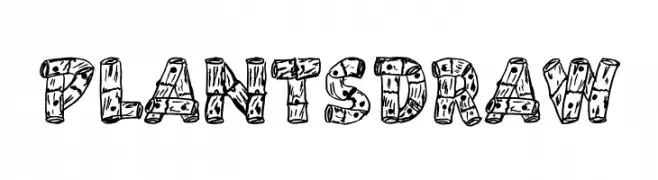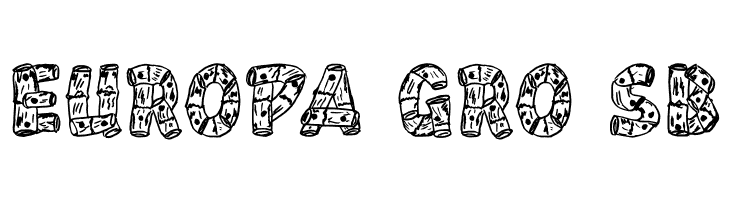
A bold, artistic font with a playful, brush-like texture and dynamic curves.
A bold, expressive script font with flowing cursive letters.
A bold, expressive script font with a hand-drawn, lively style.
A modern, rounded sans-serif font with balanced spacing and clear characters.
A bold, rounded font with a playful and friendly style.
A futuristic, geometric font with clean lines and a modern aesthetic.
Distressed, bold stencil font with a rugged, industrial look.
Botanical illustration font with plant and nature motifs for each character.
Decorative floral stencil font with unique plant illustrations for each character.
A botanical silhouette display font with each glyph formed from plant shapes.
A decorative floral dingbat set with varied flower and plant motifs.
A floral-themed decorative dingbat set with diverse flower and plant icons.
A playful, bold set of tree and plant silhouette icons.
A bold, chaotic font with jagged, puzzle-like characters.
A bold, slab serif font with high contrast and vintage appeal.
An abstract, artistic font with complex geometric and organic letterforms.
A bold, playful font with a double-layered effect and rounded strokes.
A modern, geometric font with sharp angles and high contrast.
A bold, outlined font with a playful and dynamic style.
A pixelated, blocky font with a retro digital aesthetic.
A tactile writing system using raised dots for visually impaired readers.
An abstract, decorative font with overlapping circular shapes forming each character.
Hand-drawn botanical icon font with playful leaf and plant illustrations.
A bold, expressive script font with elegant, flowing cursive letters.